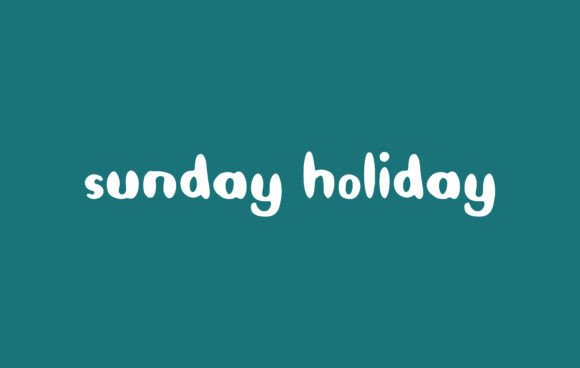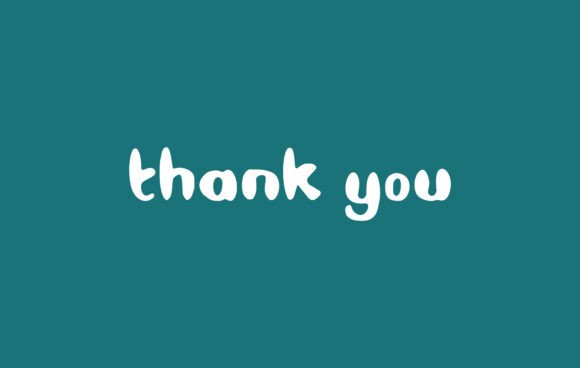
Introduction to Kamiyah Font
Kamiyah font is an authentic handwritten font with a romantic touch.
Why Choose Kamiyah Font?
Kamiyah Font offers exceptional quality and versatility, making it a valuable addition to your design toolkit. Whether you’re creating for personal projects or commercial use, Kamiyah Font delivers professional results.